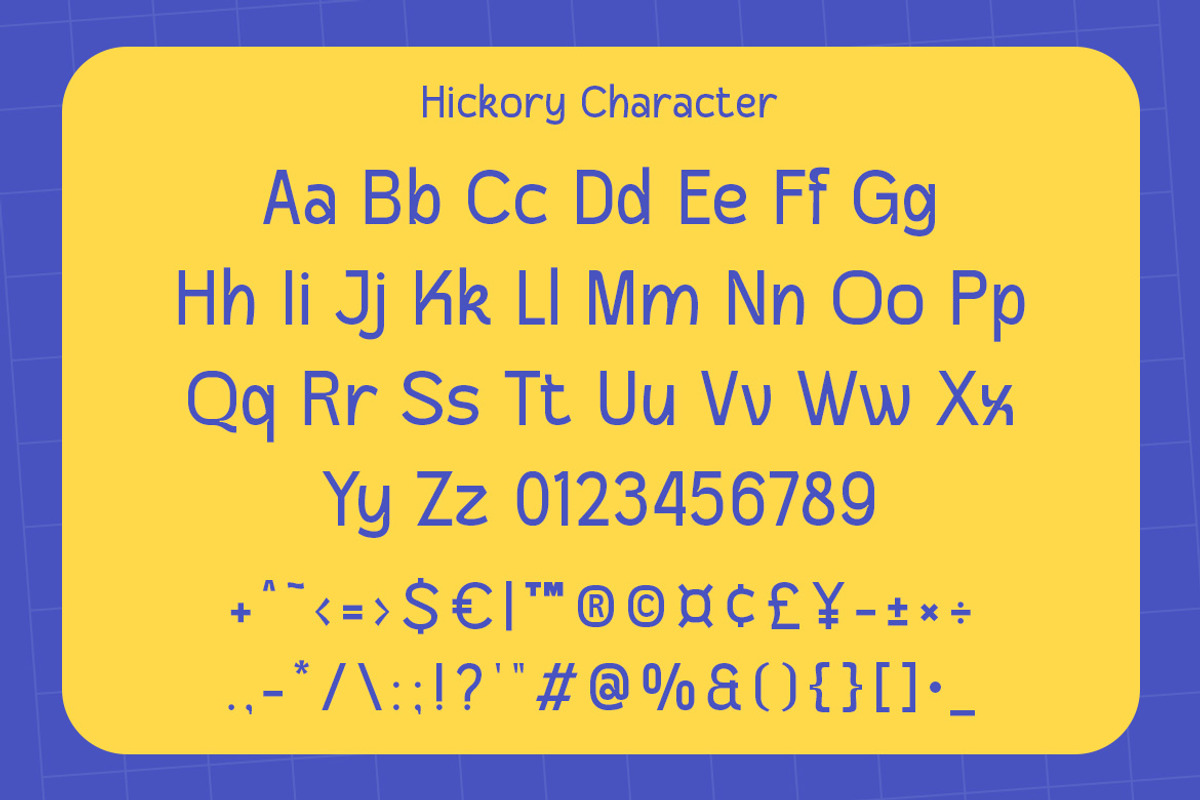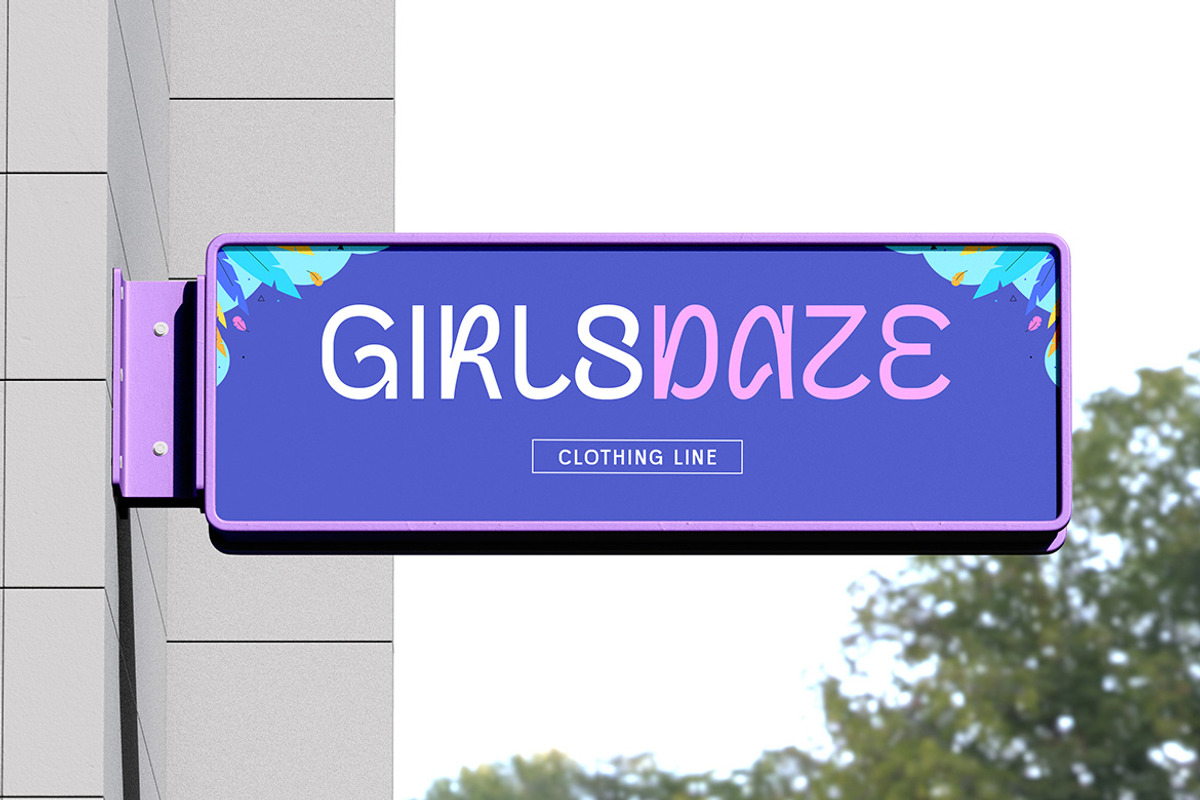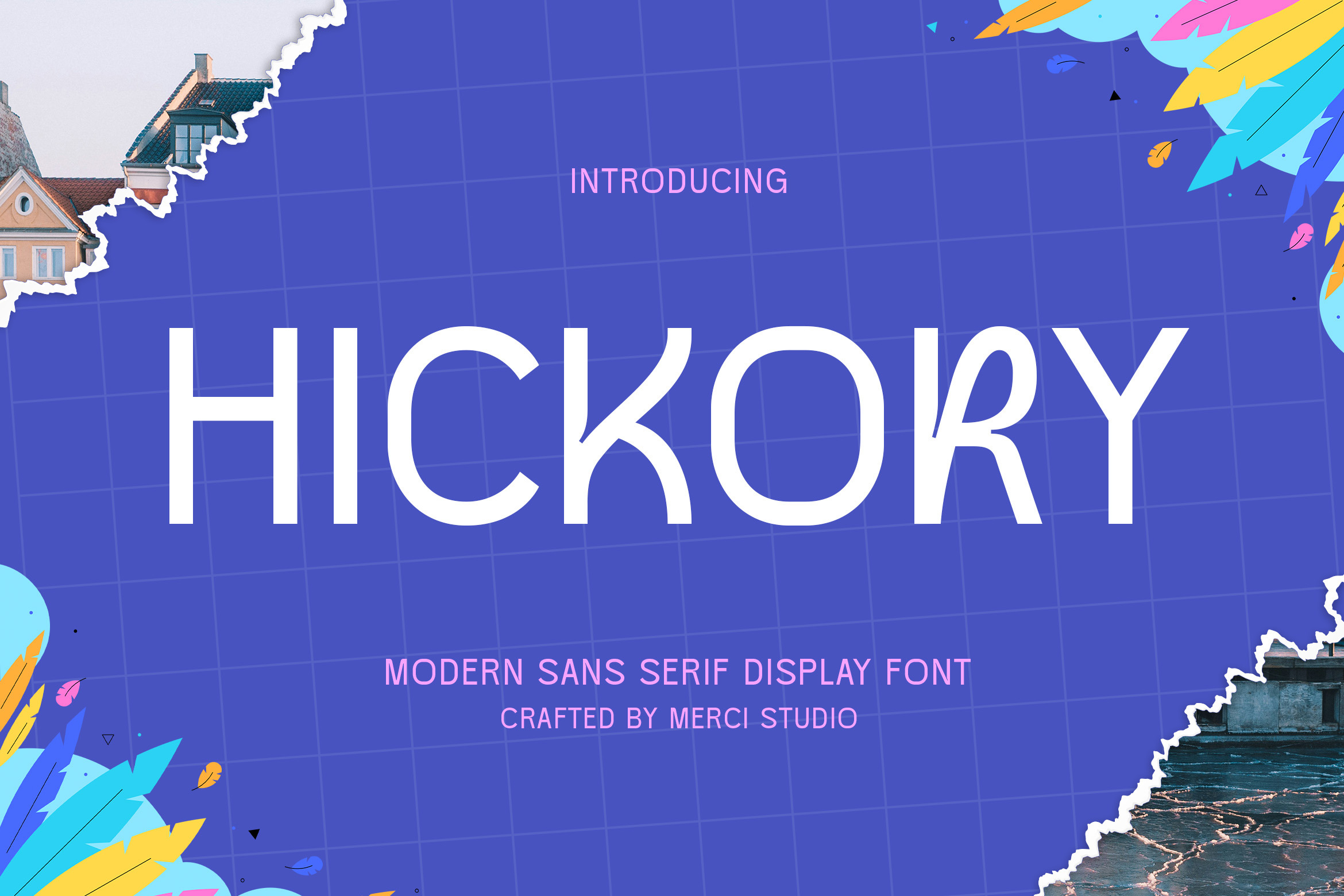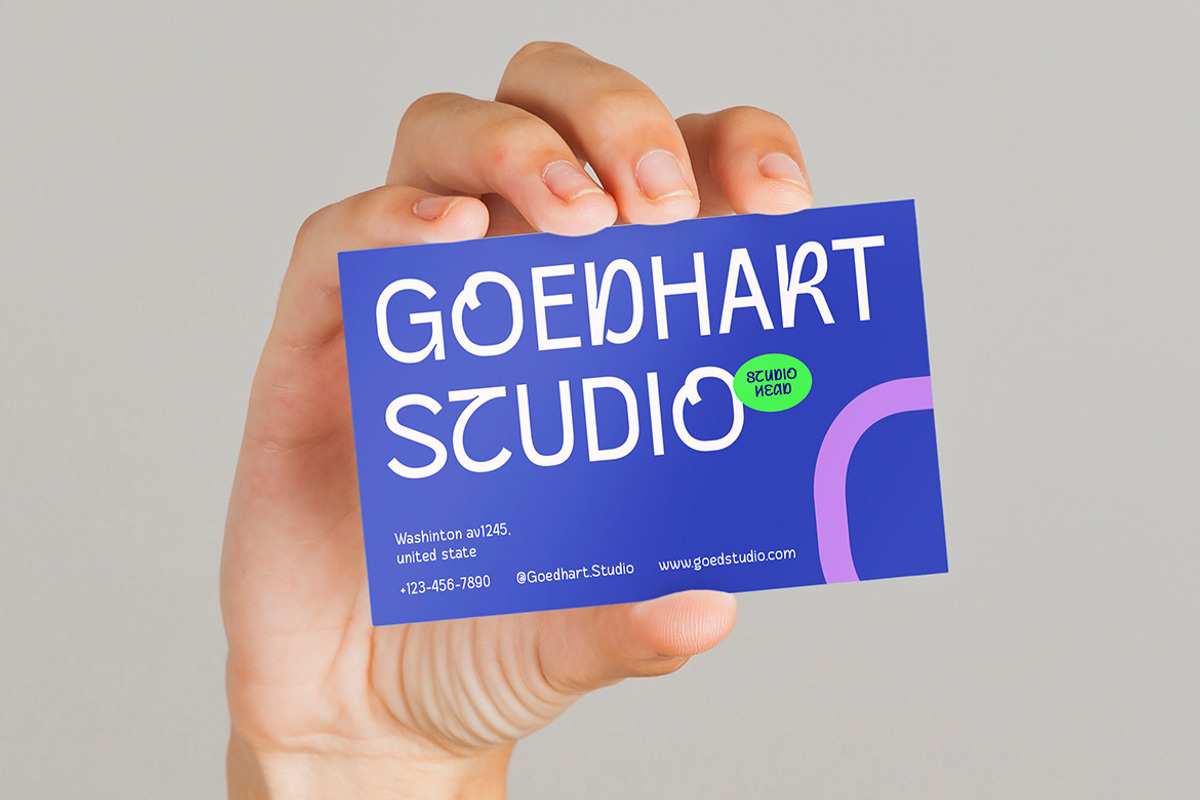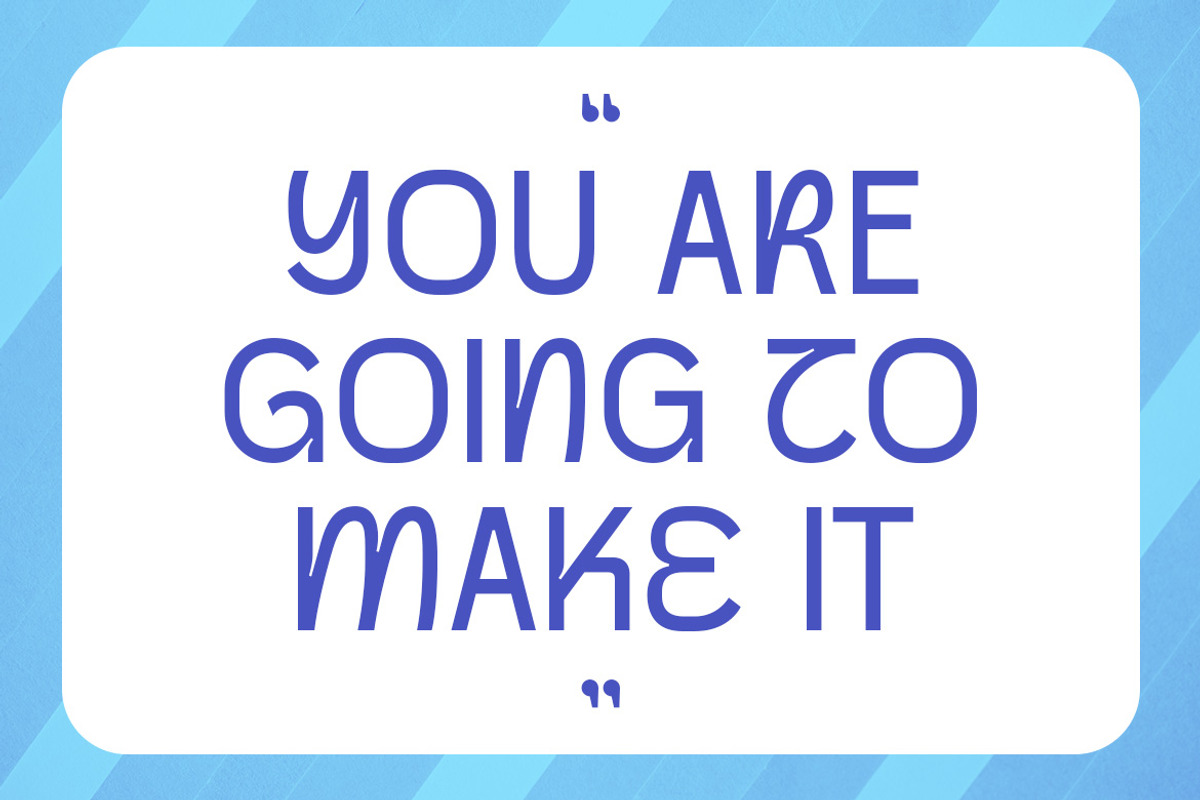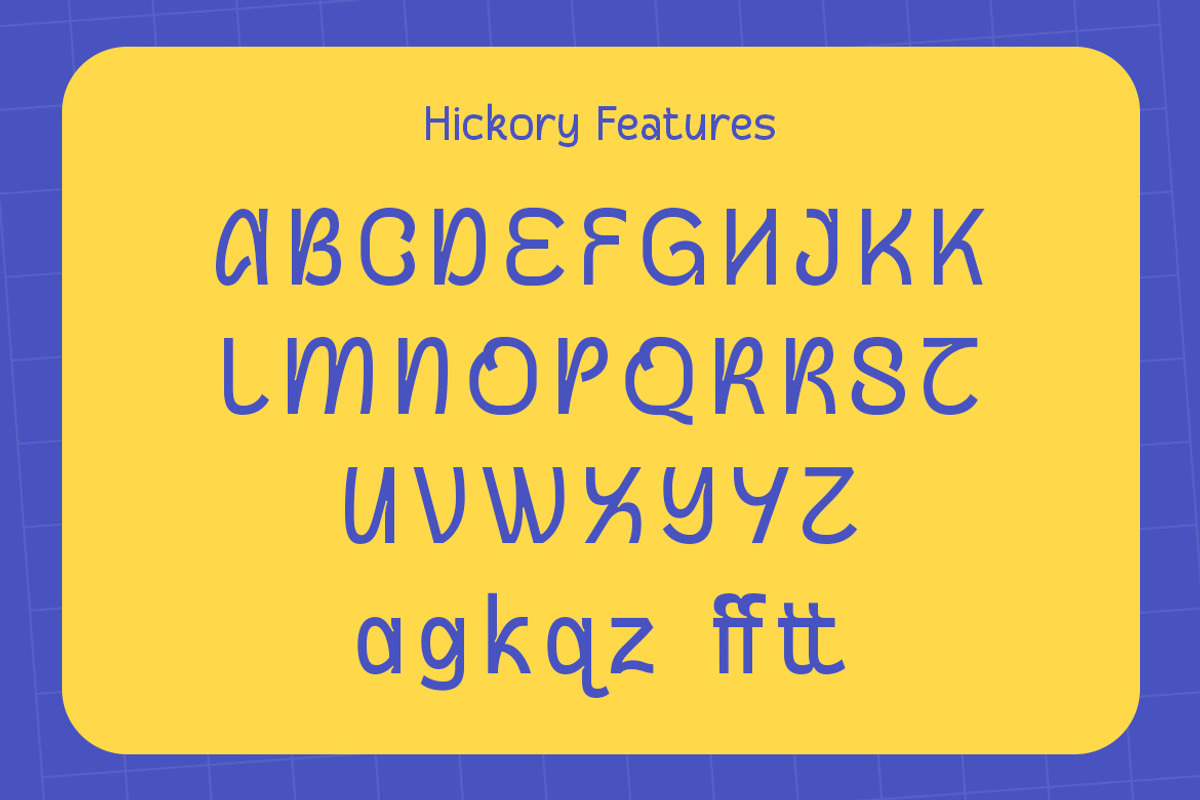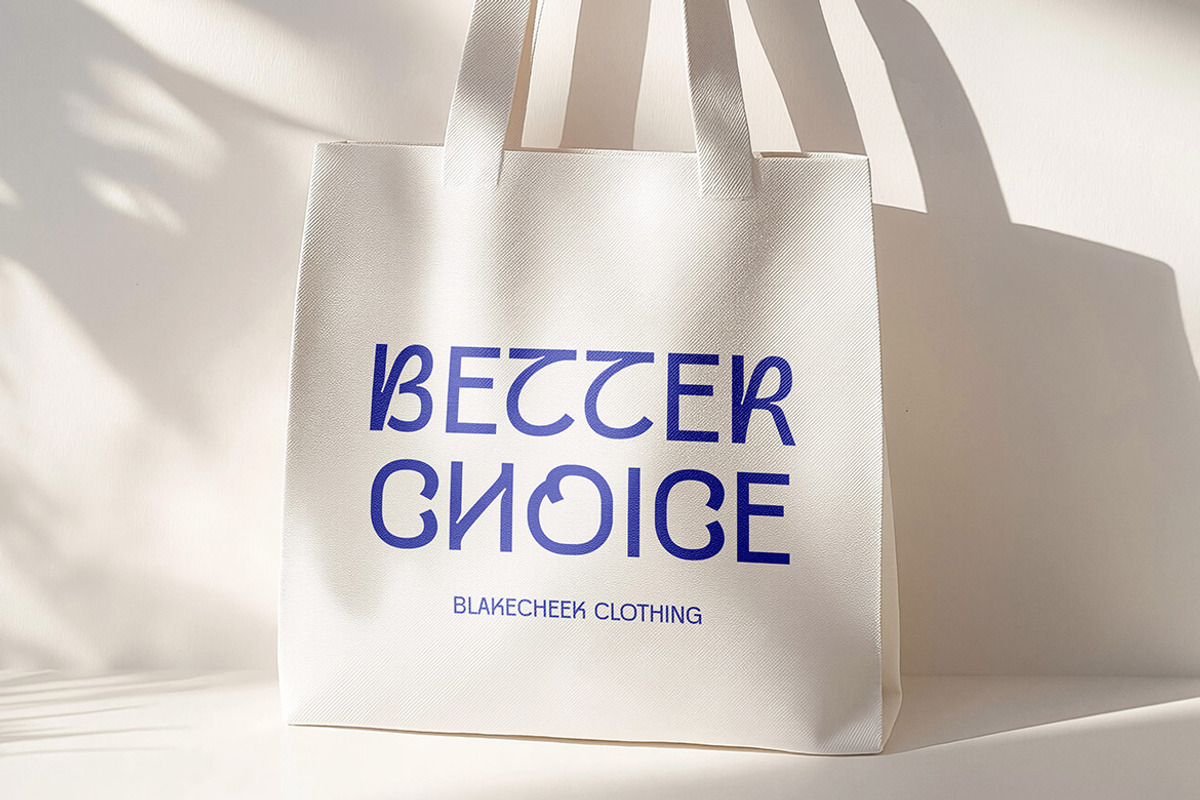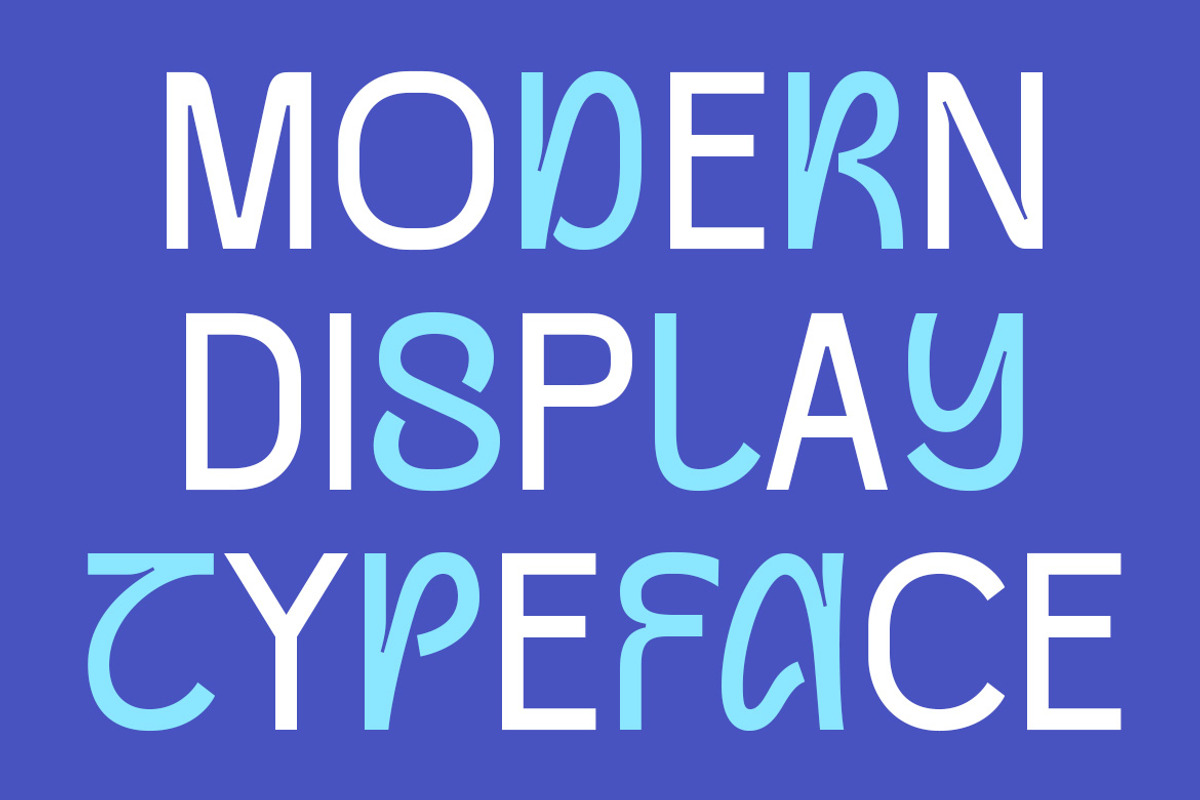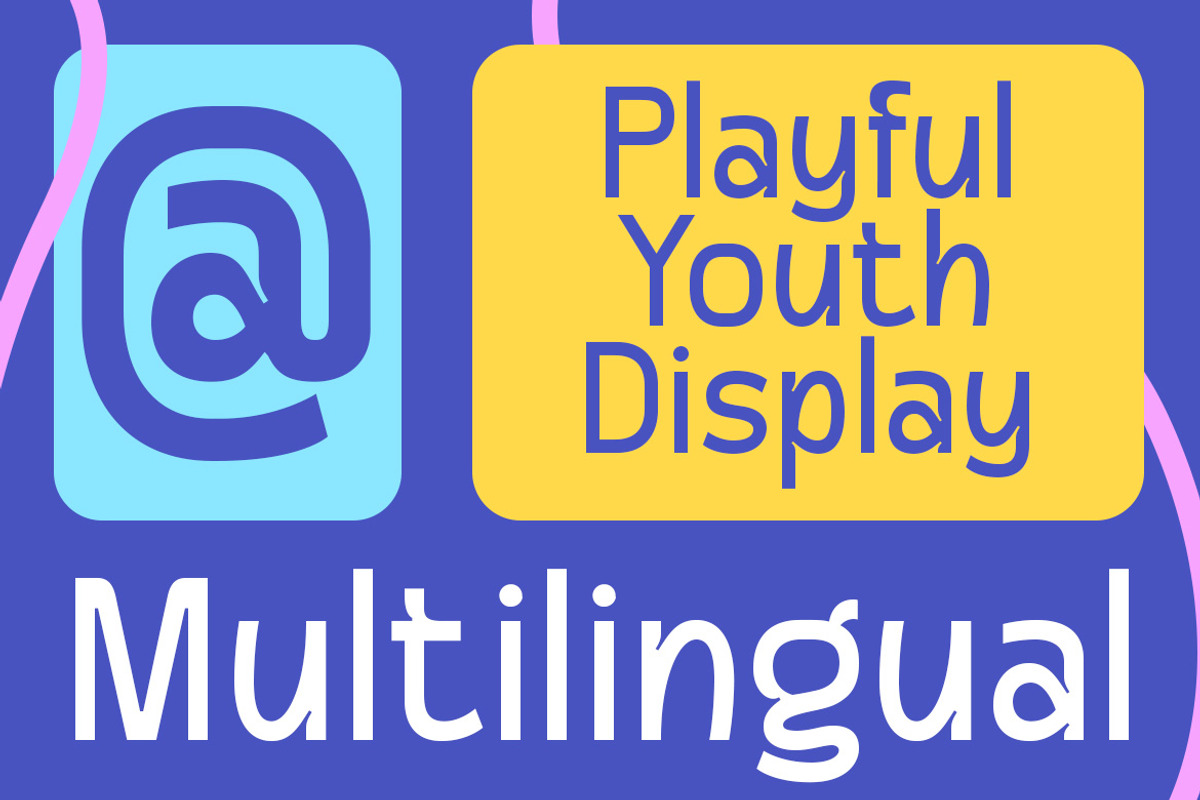
Hickory – Modern Sans Serif Typeface
Font Title: Hickory – Modern Sans Serif Display Typeface
Hickory is a modern sans serif display typeface that blends clarity, personality, and versatility into one unique design. Crafted to deliver both simplicity and charm, this font is perfect for projects that require a clean, stylish, and approachable look. Its well-balanced structure makes it ideal for branding, editorial design, packaging, social media, and eye-catching headlines.
The character set is designed with attention to detail, offering smooth readability while still maintaining a distinctive edge. Hickory works seamlessly across both digital and print platforms, making it a reliable typeface for modern creatives. Whether you’re designing logos, posters, invitations, or promotional content, this font gives your work a contemporary yet friendly presence.
Elevate your typography with Hickory—a versatile choice that combines modern sensibility with creative expression.
* Uppercase Letters
* Numbers & Punctuation
* Ligature & Alternate Character
* Unique Hand-Drawn Style